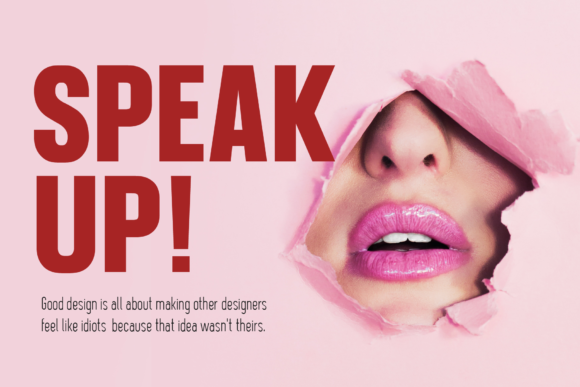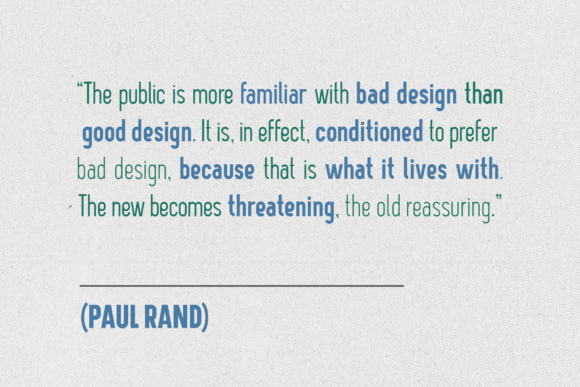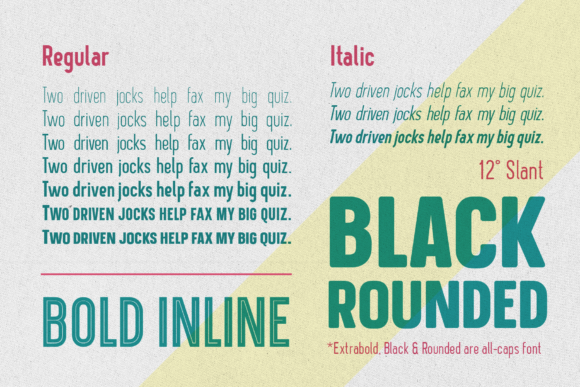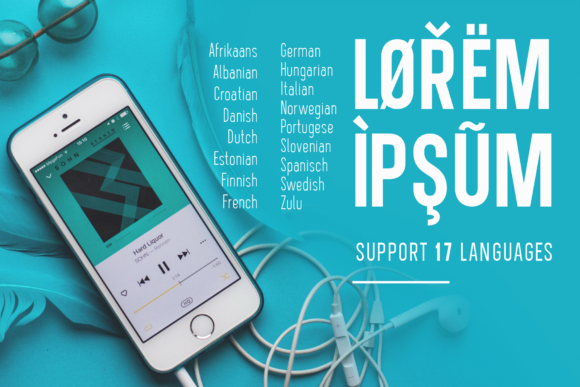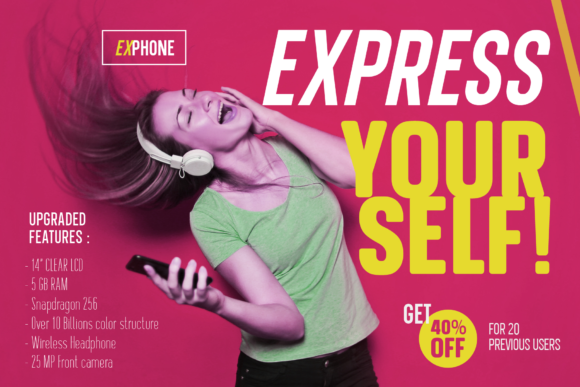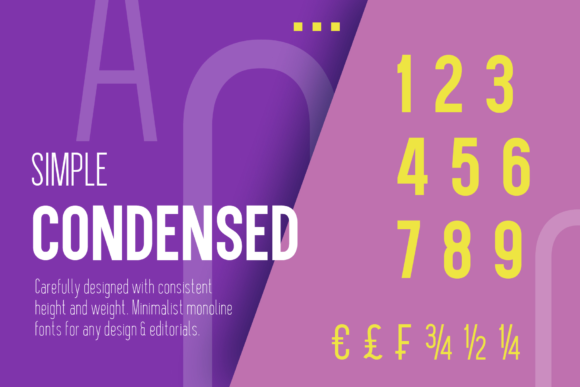
Davish Family Font: The Ultimate Minimalist Sans Serif for Designers
In the world of typography, a well-designed font can make all the difference in the success of a design project. For designers and crafters looking for a versatile and modern sans serif font, the Davish Family Font is an excellent choice. This amazing minimalist font family is carefully crafted to provide a wide range of design possibilities, from editorial design to branding projects and more.
What is Davish Family Font?
The Davish Family Font is a thoughtfully designed sans serif font family that consists of 7 weights and 5 styles. This comprehensive font family is built on a condensed height, making it perfect for designs where space is limited. The font family includes thin, light, normal, medium, and bold styles, which are ideal for editorial design applications such as headlines, sub-headlines, body copy, footnotes, and document layouts.
Key Features of Davish Family Font
- 7 Weights and 5 Styles: The Davish Family Font offers a wide range of weights and styles, including thin, light, normal, medium, bold, bold-inline, extra-bold, black, and black rounded. This variety allows designers to experiment with different typography combinations to achieve the desired visual effect.
- Condensed Height: The font family is built on a condensed height, making it perfect for designs where space is limited, such as posters, brochures, and magazines.
- Minimalist Aesthetic: The Davish Family Font boasts a clean and minimalist design, making it perfect for modern designs that require a simple yet elegant typography.
Use Cases for Davish Family Font
The Davish Family Font is an incredibly versatile font family that can be used in a wide range of design applications. Here are some use cases where this font family shines:
- Editorial Design: The thin, light, normal, medium, and bold styles are perfect for editorial design applications such as headlines, sub-headlines, body copy, footnotes, and document layouts.
- Posters and Brochures: The bold-inline, extra-bold, black, and black rounded styles are ideal for posters, brochures, and magazines, where a bold and eye-catching typography is required.
- Branding Projects: The Davish Family Font is perfect for branding projects, where a consistent and recognizable typography is essential.
- Motion Graphics and Infographics: The font family’s clean and minimalist design makes it perfect for motion graphics and infographics, where a clear and concise typography is required.
- App Designs: The Davish Family Font can be used in app designs, where a modern and elegant typography is essential for a great user experience.
Why Choose Davish Family Font?
With so many font families available, why choose the Davish Family Font? Here are some reasons why designers and crafters should consider this amazing minimalist sans serif font:
- Versatility: The Davish Family Font is an incredibly versatile font family that can be used in a wide range of design applications.
- Modern Aesthetic: The font family’s clean and minimalist design makes it perfect for modern designs that require a simple yet elegant typography.
- High-Quality Design: The Davish Family Font is carefully crafted to provide a high-quality design that is perfect for professional design projects.
In conclusion, the Davish Family Font is an excellent choice for designers and crafters looking for a versatile and modern sans serif font. With its 7 weights and 5 styles, condensed height, and minimalist aesthetic, this font family is perfect for a wide range of design applications, from editorial design to branding projects and more. Whether you’re working on a professional design project or a personal craft project, the Davish Family Font is sure to impress.